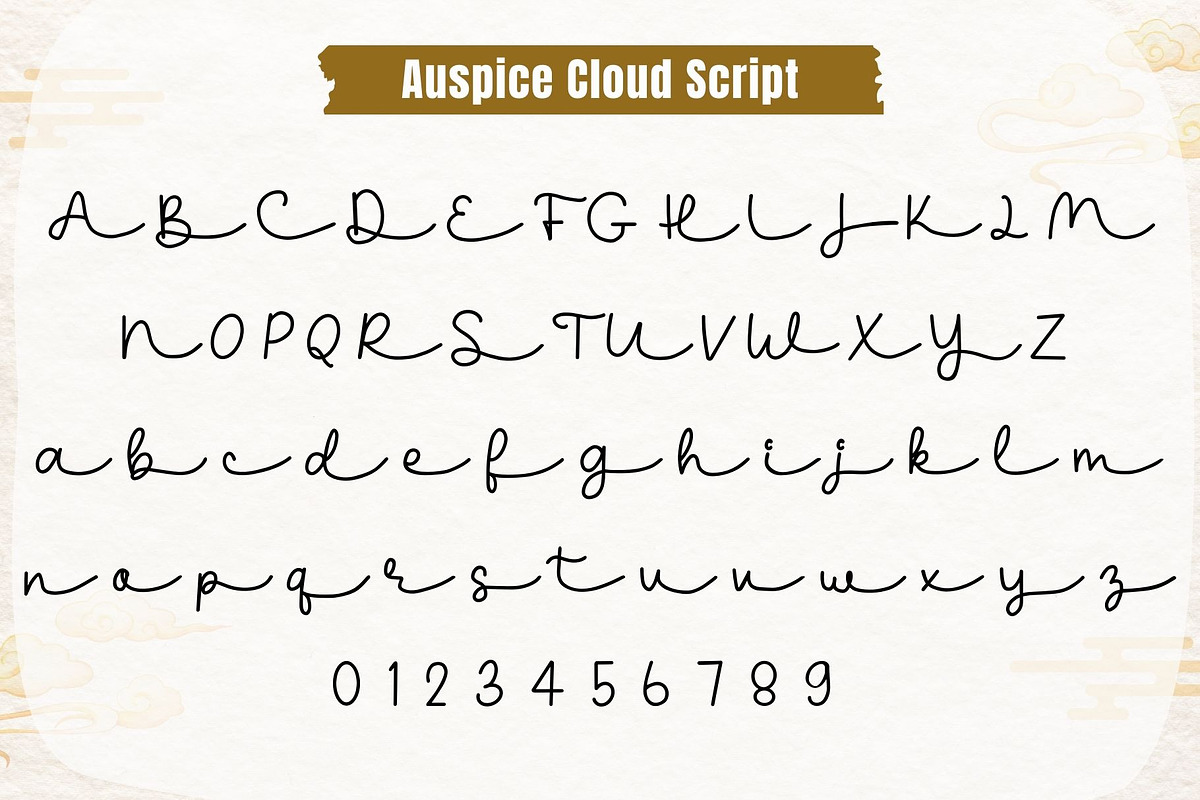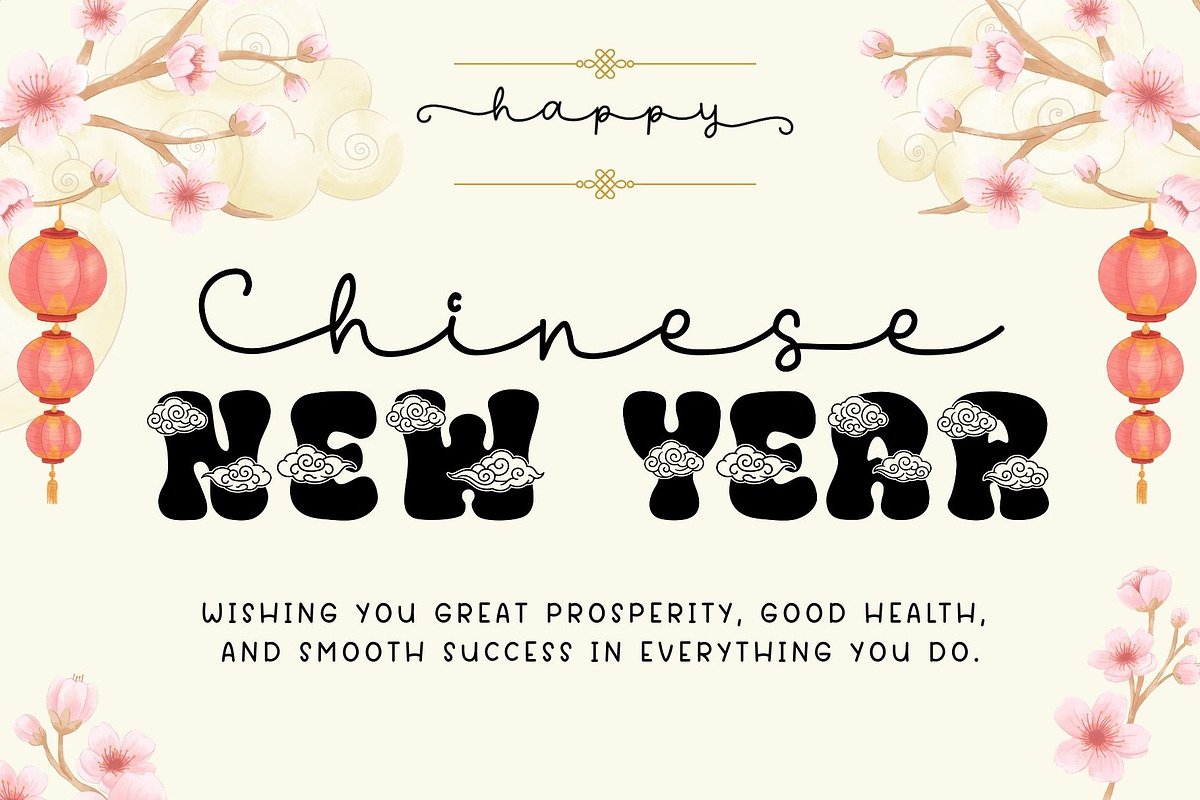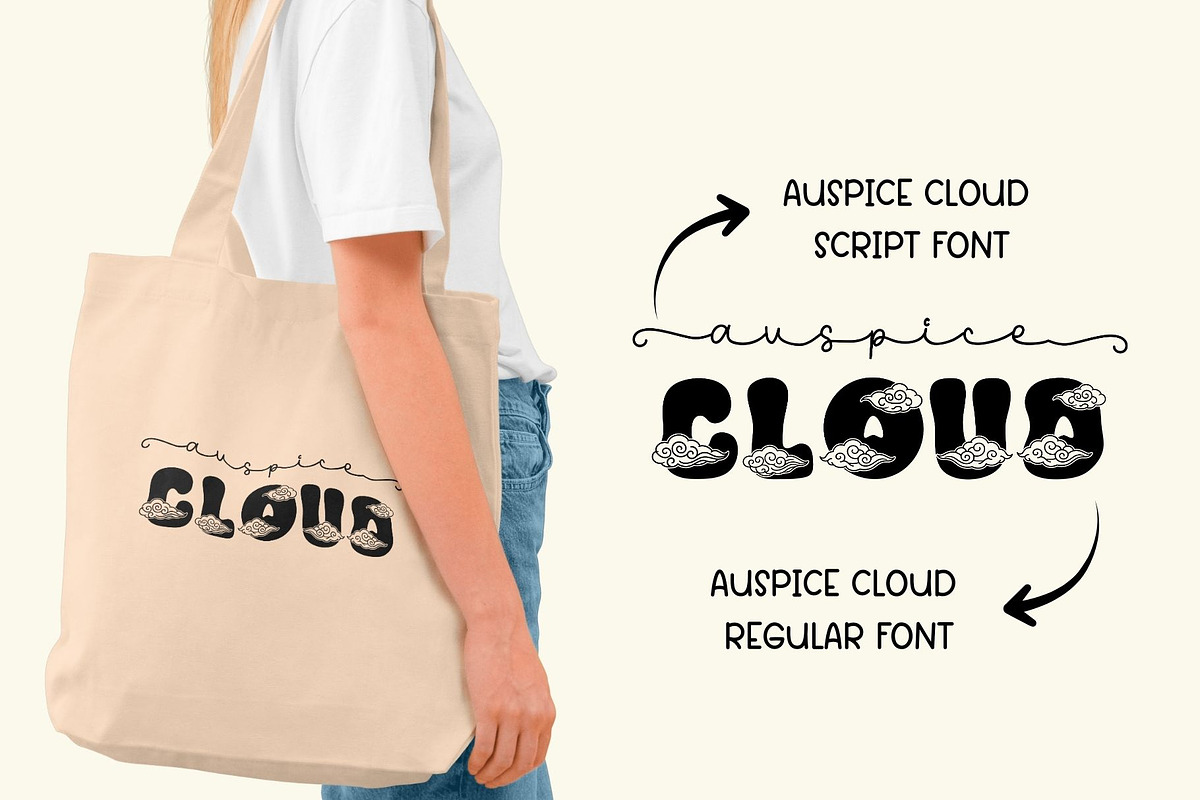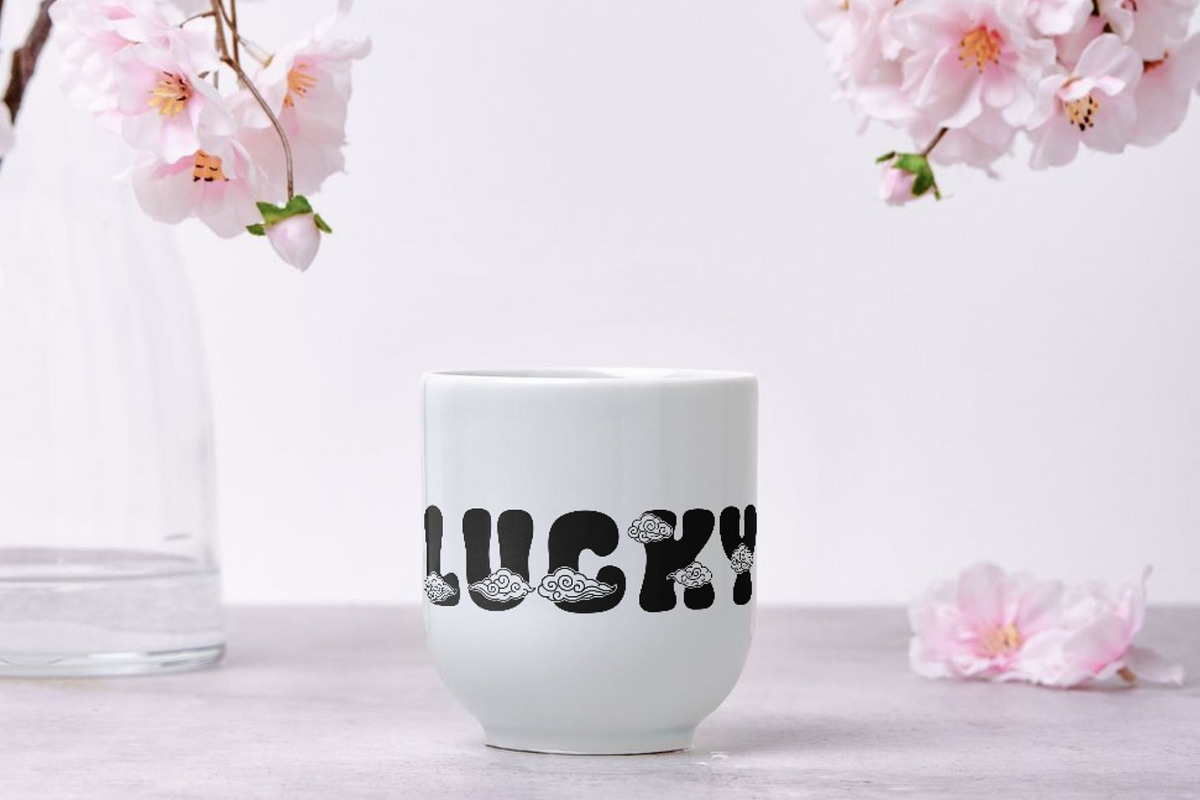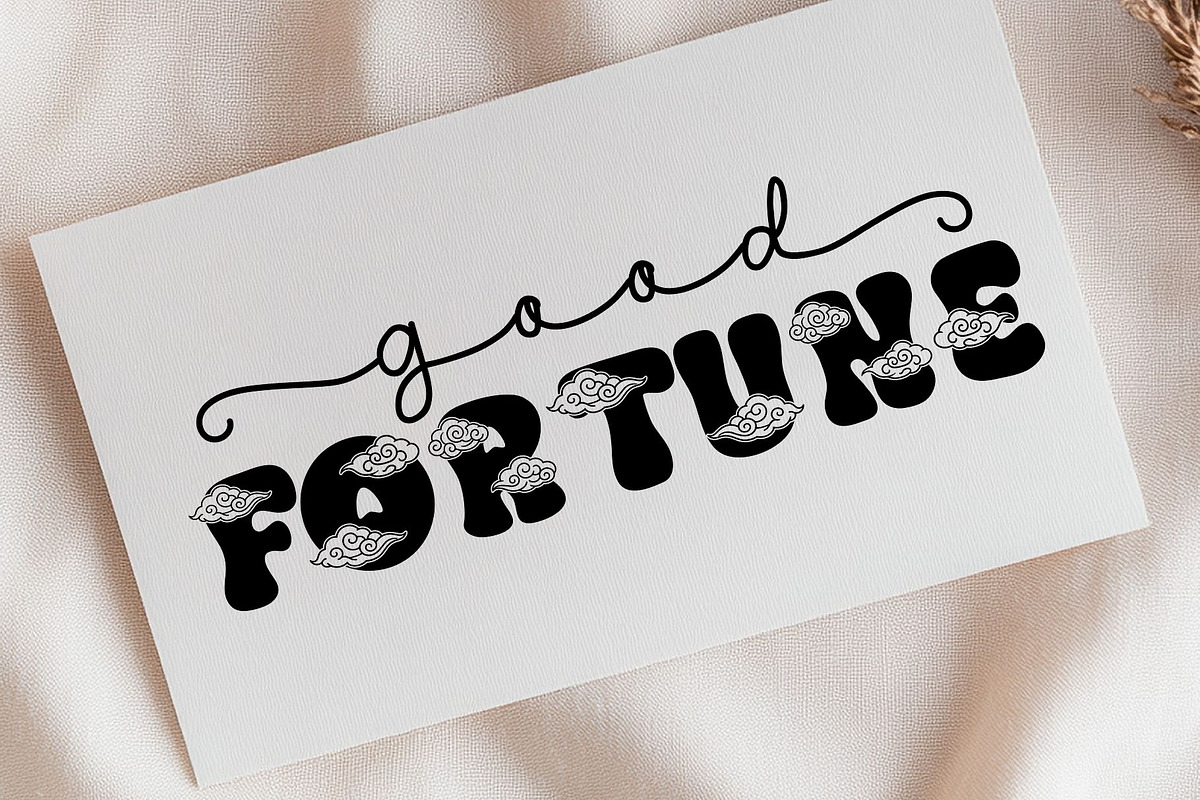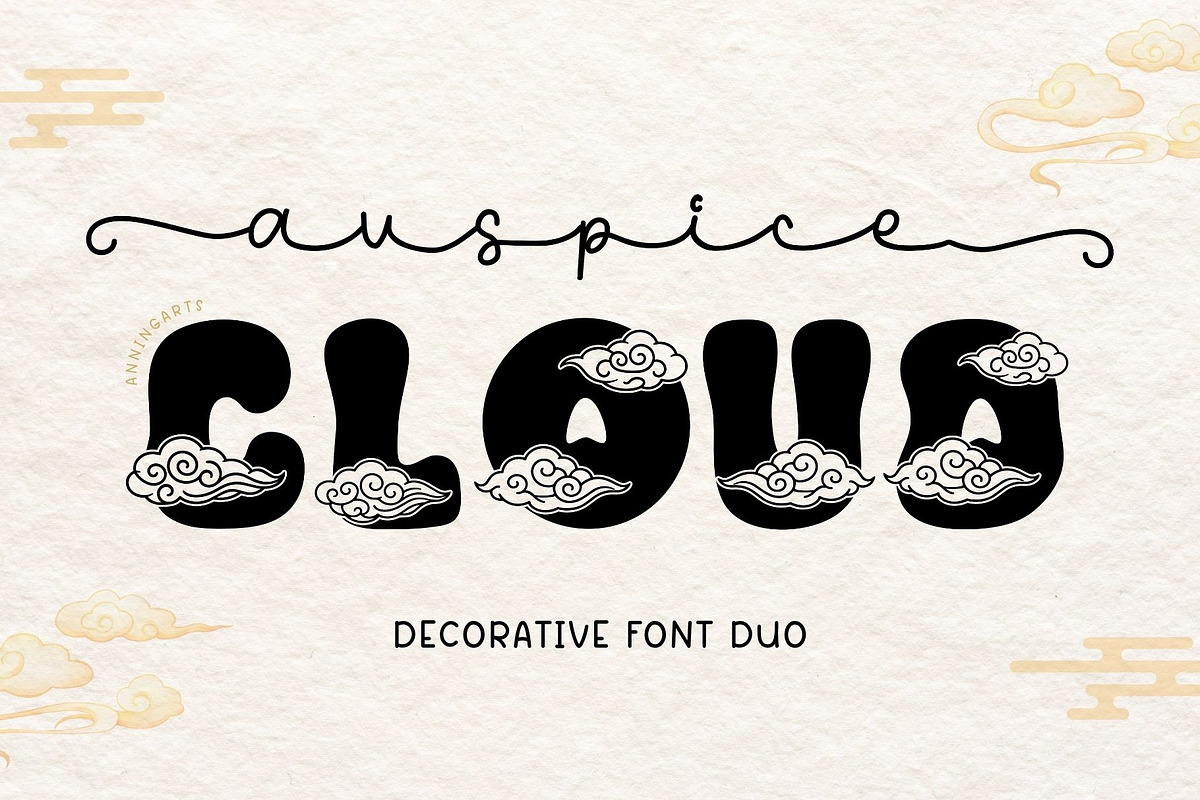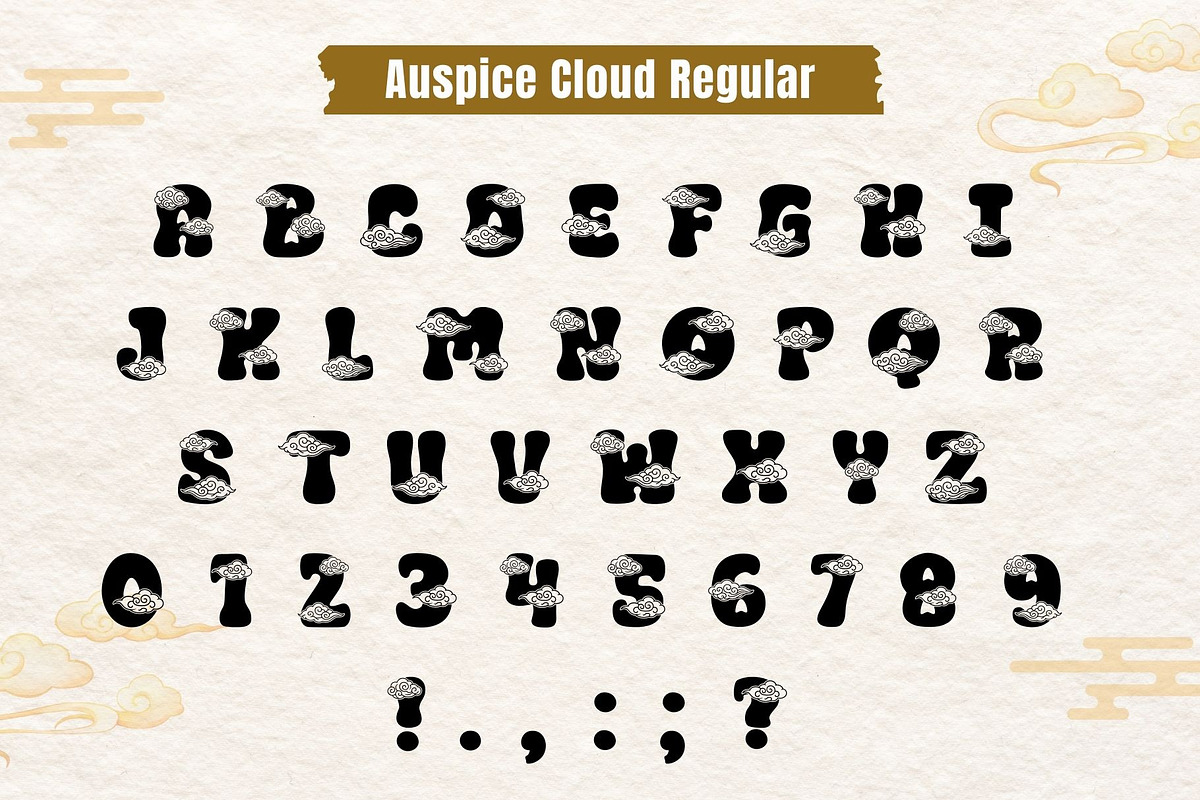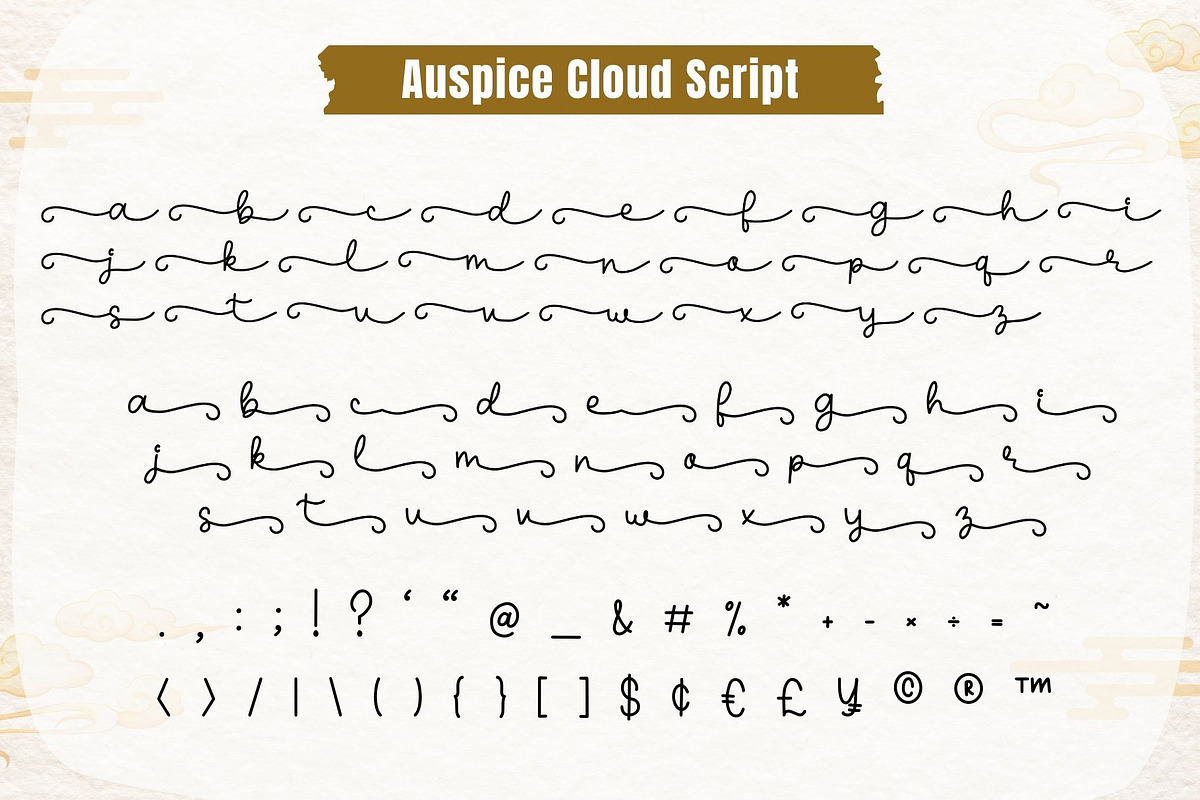
Auspice Cloud - Chinese Font Duo
Create meaningful and eye-catching designs with Auspice Cloud Font Duo, a decorative font set inspired by Chinese auspicious cloud motifs and traditional Eastern aesthetics.
This font duo includes:
A bold decorative cloud font with lucky cloud ornaments A smooth handwritten script font with elegant swashes
Perfectly paired together, these fonts are ideal for Chinese New Year designs, Asian-inspired branding, festive quotes, packaging, greeting cards, apparel, tote bags, mugs, posters, and cultural projects.
✨ Perfect For
Chinese New Year & Lunar New Year designs Asian style logos & branding Posters, invitations & greeting cards Sublimation & print on demand Tote bags, mugs, shirts & stickers
This font duo blends tradition with a modern handcrafted feel, making your designs stand out while keeping a warm and auspicious atmosphere.